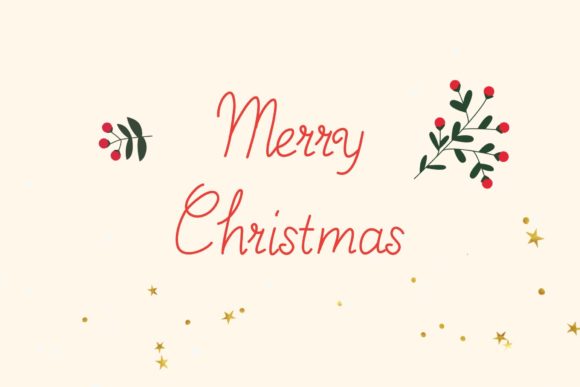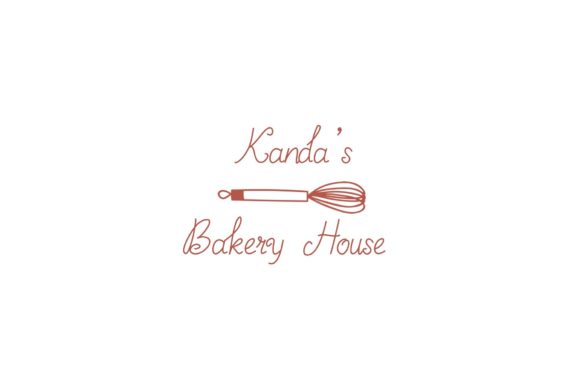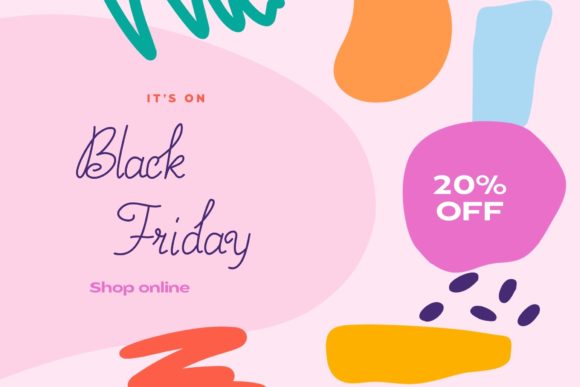
Introducing Charlotte Font: Elevate Your Designs with Delicate Elegance
Are you on the hunt for a font that exudes elegance, sophistication, and a touch of whimsy? Look no further than the Charlotte font. This beautiful, handwritten font is perfect for adding a personal touch to your designs, whether you’re working on love letters, wedding invitations, or any other project that requires a dash of romance and charm.
What is Charlotte Font?
Charlotte is a delicate and chic handwritten font, carefully crafted to bring a sense of refinement and luxury to your designs. Its intricate strokes and flowing lines make it an ideal choice for projects where you want to make a lasting impression. Whether you’re a designer, crafter, or DIY enthusiast, Charlotte font is sure to become your go-to choice for creating stunning visual content.
Key Features of Charlotte Font
- Delicate and Elegant: Charlotte font boasts a slender, cursive style that adds a touch of sophistication to any design.
- Handwritten with Love: The font’s handwritten nature gives it a personal, organic feel that’s perfect for projects where you want to convey emotion and personality.
- Versatile: Use Charlotte font for a wide range of projects, from romantic love letters and wedding invitations to branding, packaging, and more.
- Easily Readable: Despite its delicate nature, Charlotte font is surprisingly easy to read, making it perfect for both digital and print applications.
How to Use Charlotte Font in Your Designs
Adding Charlotte font to your designs is a breeze. Here are a few ideas to get you started:
- Wedding Invitations: Make your wedding invitations truly special with Charlotte font. Use it for the main text or as a decorative element to add a touch of elegance.
- Love Letters: Write your loved ones a heartfelt letter using Charlotte font. The font’s romantic feel is sure to make your letter extra special.
- Branding and Packaging: Use Charlotte font to add a touch of sophistication to your brand’s packaging, labels, or marketing materials.
- DIY Crafts: Add Charlotte font to your DIY crafts, such as handmade cards, gift tags, or scrapbooking projects, for a personal touch.
Tips for Working with Charlotte Font
To get the most out of Charlotte font, here are a few tips to keep in mind:
- Pair it with Other Fonts: Experiment with pairing Charlotte font with other fonts to create a unique look. A bold, sans-serif font can provide a nice contrast to Charlotte’s delicate style.
- Adjust the Size: Don’t be afraid to experiment with different font sizes to achieve the desired effect. Charlotte font looks great in large sizes, but it can also be used for smaller text.
- Use it Sparingly: While Charlotte font is beautiful, it’s best used sparingly. Use it for headings, titles, or special text to add emphasis and create visual interest.
Charlotte font is a stunning, handwritten font that’s sure to elevate your designs to the next level. Its delicate, elegant style makes it perfect for a wide range of projects, from romantic love letters and wedding invitations to branding and DIY crafts. With its versatility, readability, and beauty, Charlotte font is a must-have for any designer or crafter looking to add a touch of sophistication and whimsy to their work.